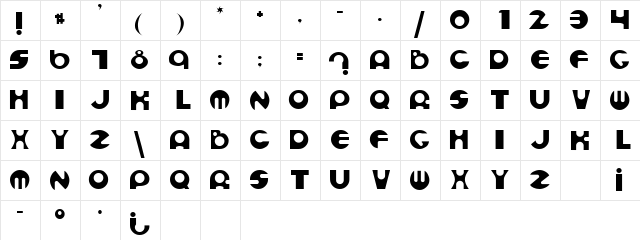
ESMOND Regular
Design Context for ESMOND Typeface
ESMOND is a composed and adaptable typeface that performs quietly and consistently across a wide range of design contexts.